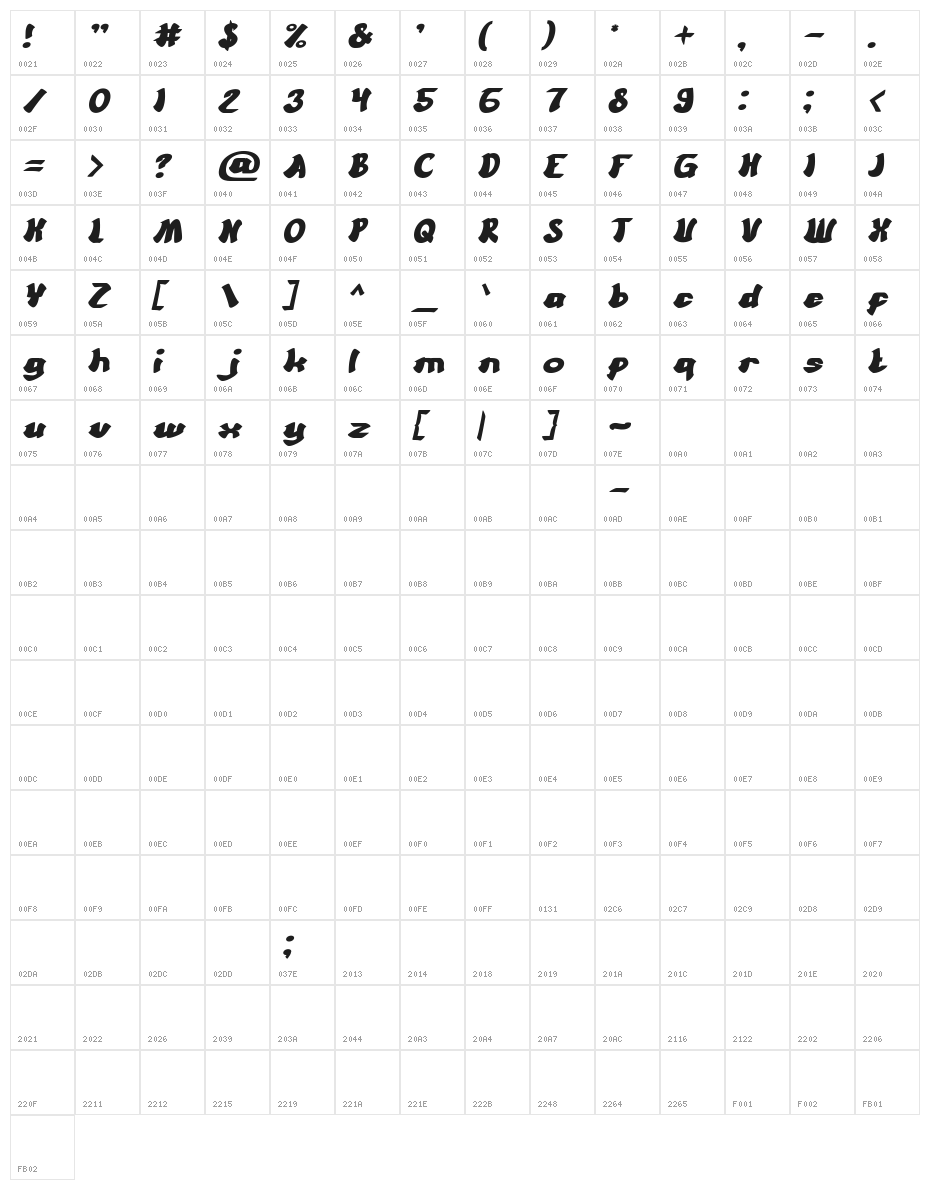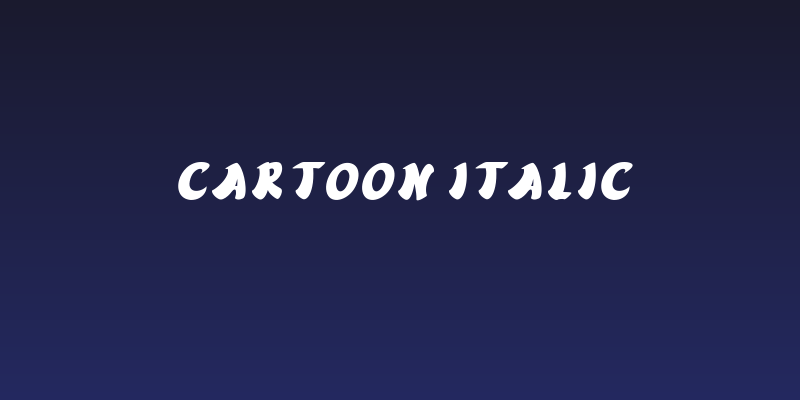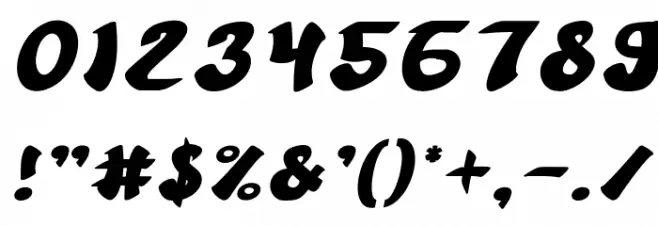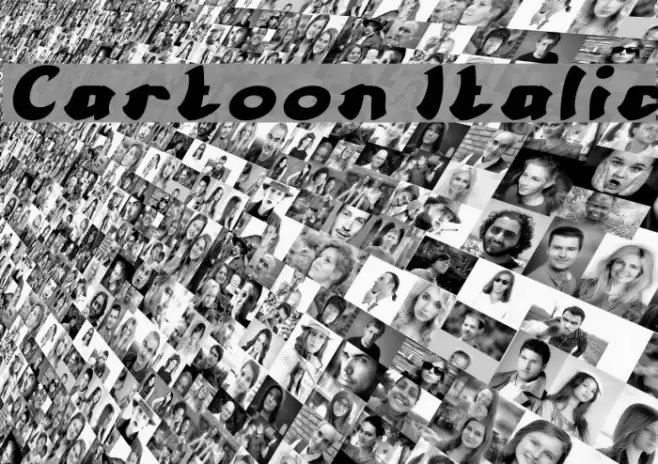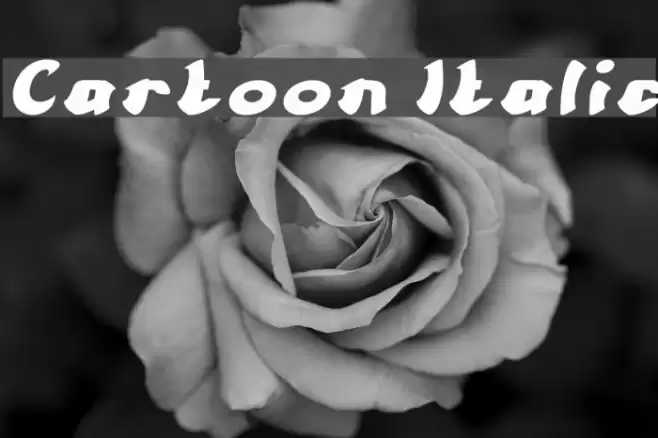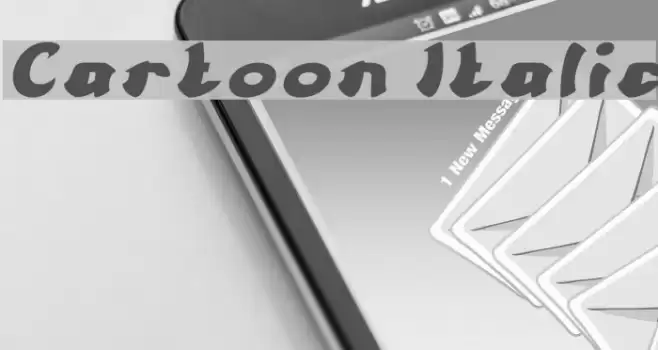
Cartoon Italic Font
This playful and dynamic font features a bold, italicized style with a cartoonish flair. The characters are rounded and slightly exaggerated, giving them a whimsical appearance. The uppercase letters are robust and prominent, while the lowercase letters maintain a consistent flow with a slightly slanted orientation. Numbers and special characters follow the same lively design, making them suitable for creative and informal contexts. The font's thick strokes and smooth curves contribute to its friendly and approachable look, ideal for projects that require a fun and engaging visual element.
| Proposed Projects | Ideal for children's books, comic strips, playful branding, and animated video titles. |